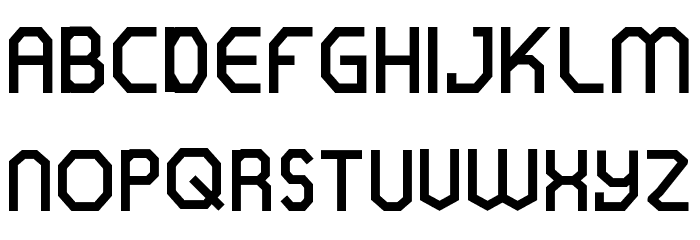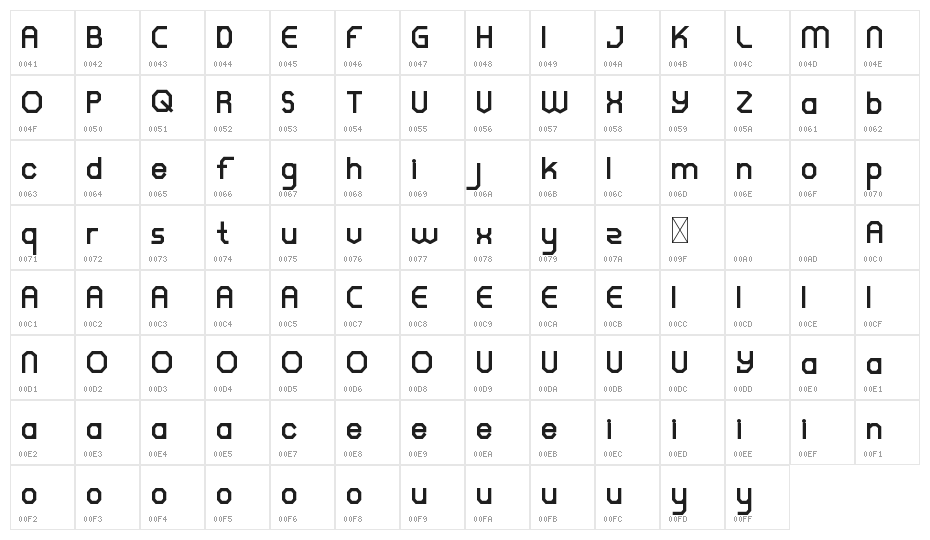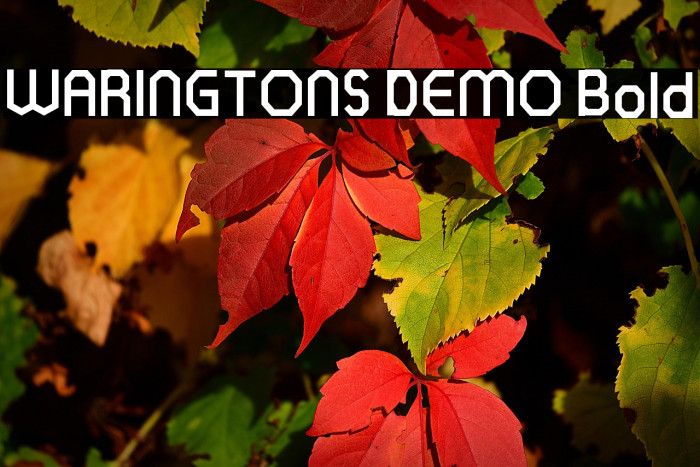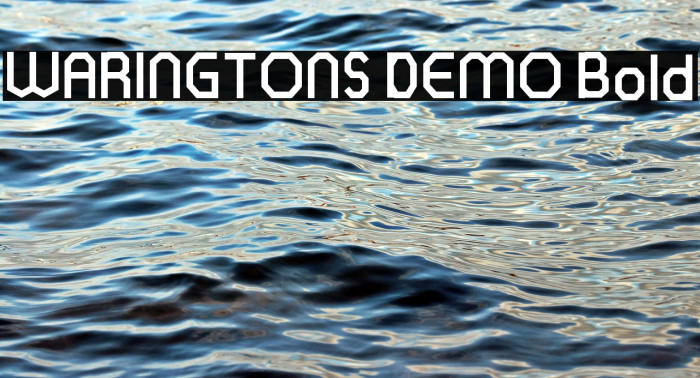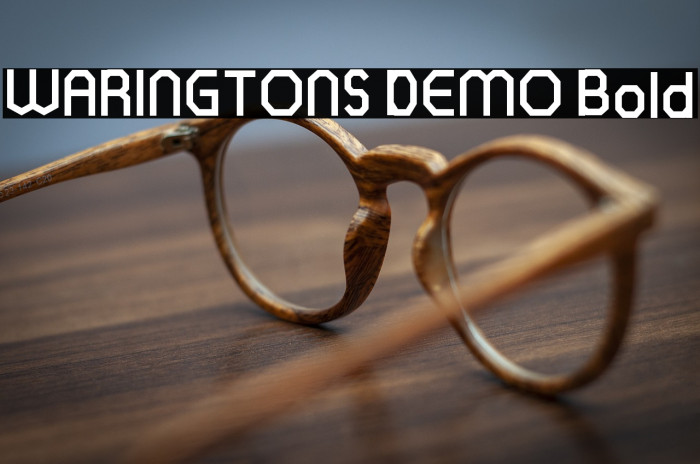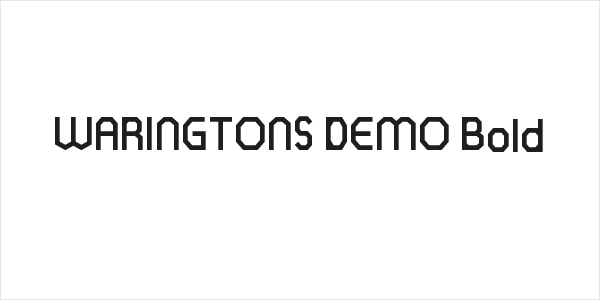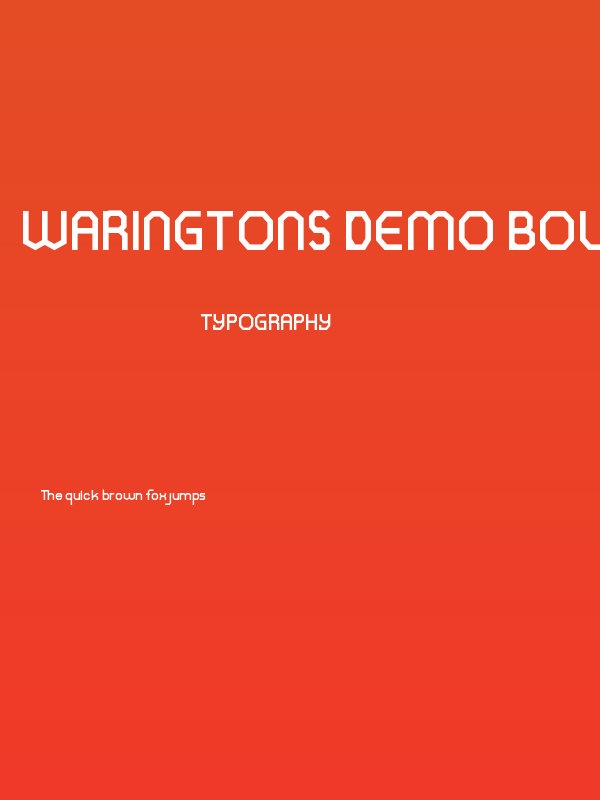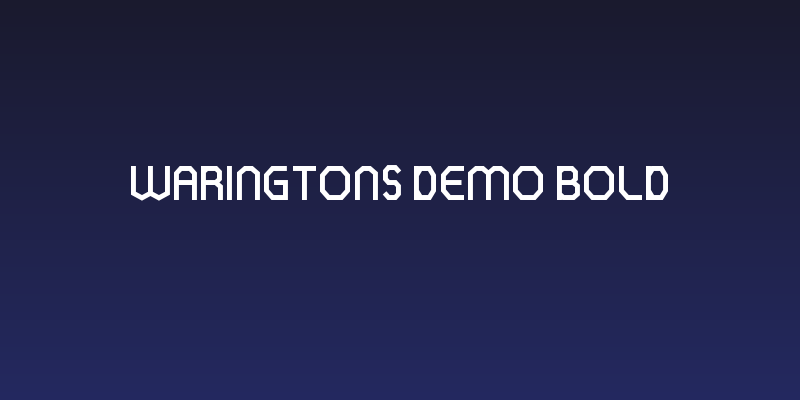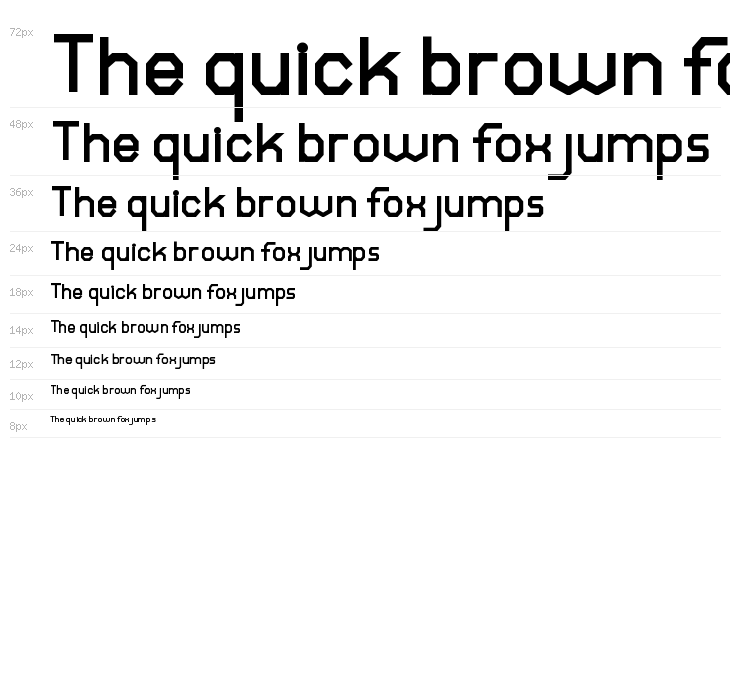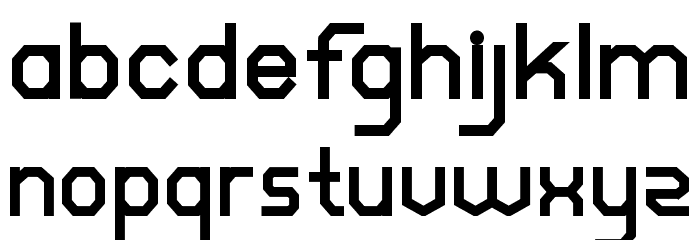
WARINGTONS DEMO Bold Font
WARINGTONS DEMO Bold Description
This font features a bold, geometric design with a modern and edgy appearance. The characters are constructed with straight lines and sharp angles, giving it a futuristic and industrial feel. The uppercase and lowercase letters maintain a consistent style, with a uniform height and width that contributes to its structured look. The numerals and special characters follow the same design principles, ensuring a cohesive appearance across all glyphs. The font's boldness and unique style make it stand out, suitable for projects that require a strong visual impact.